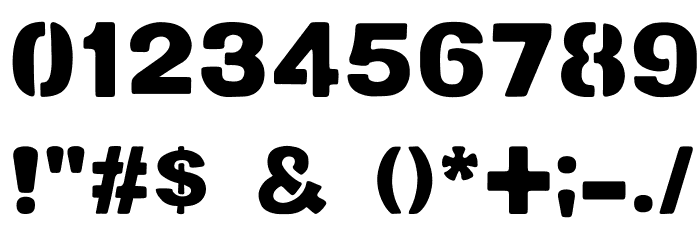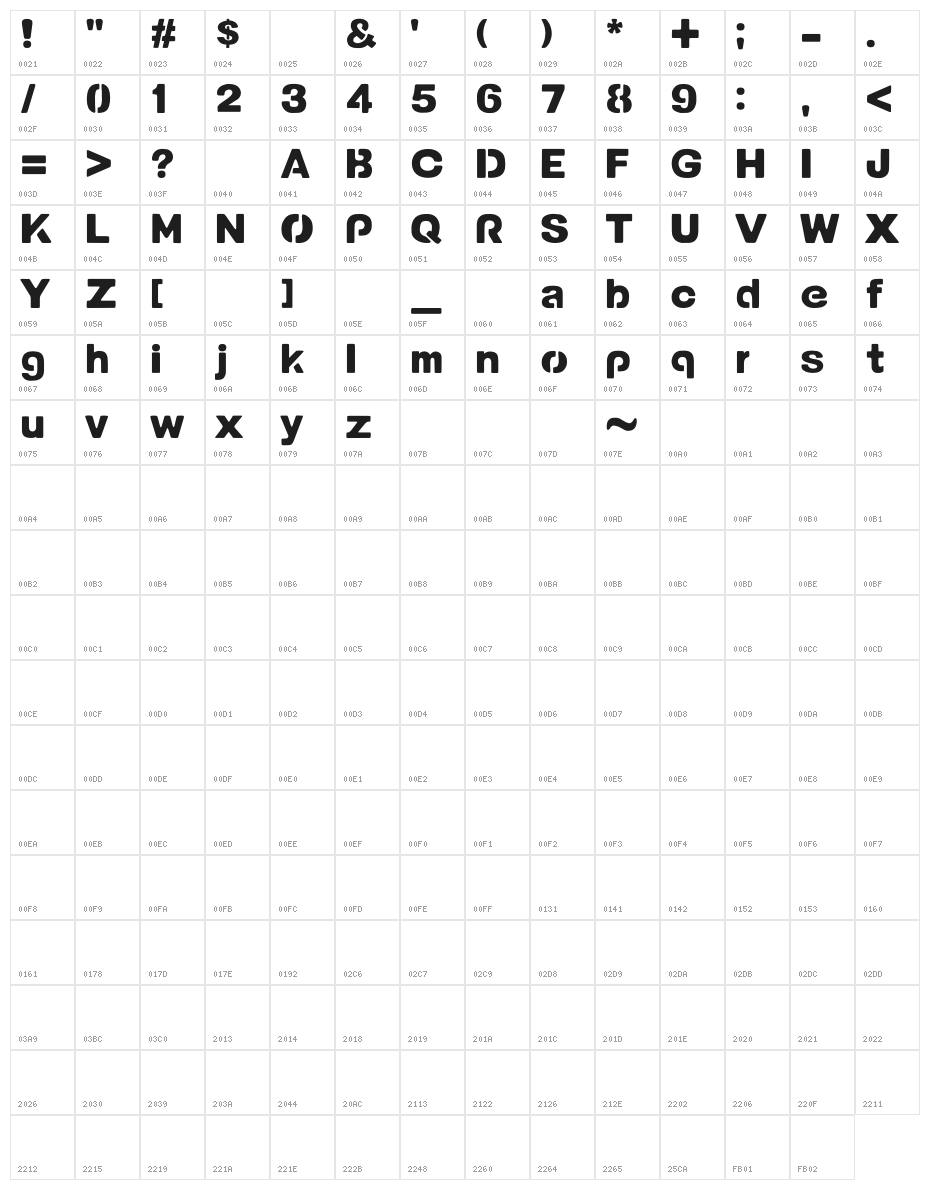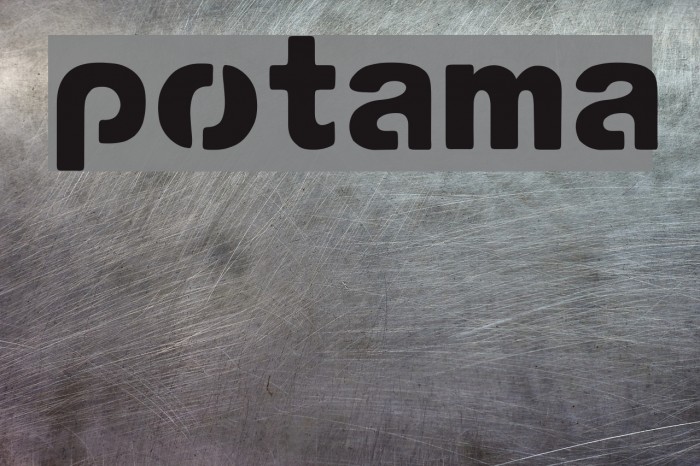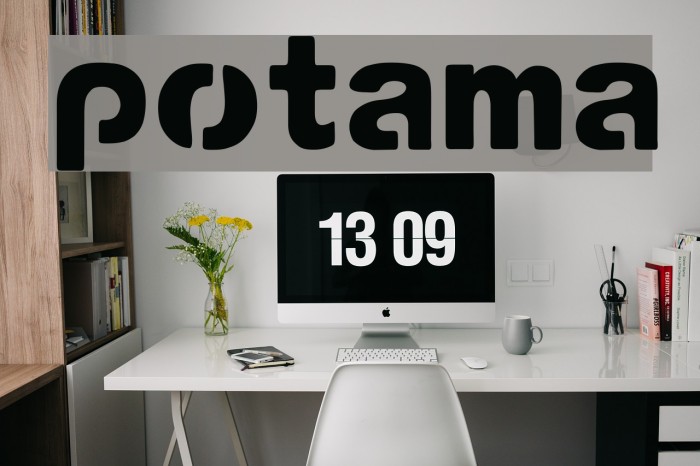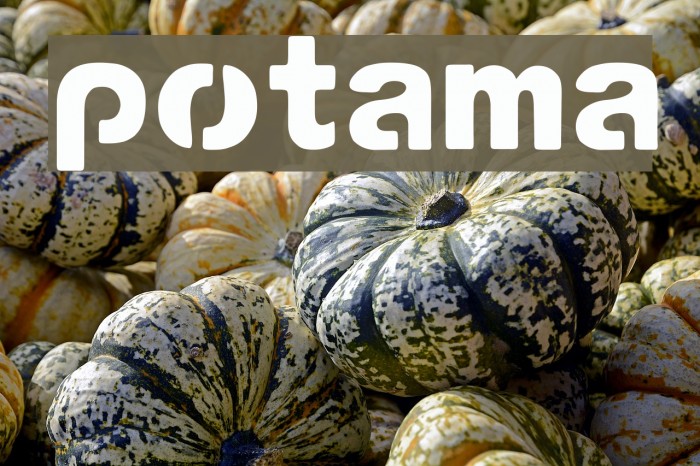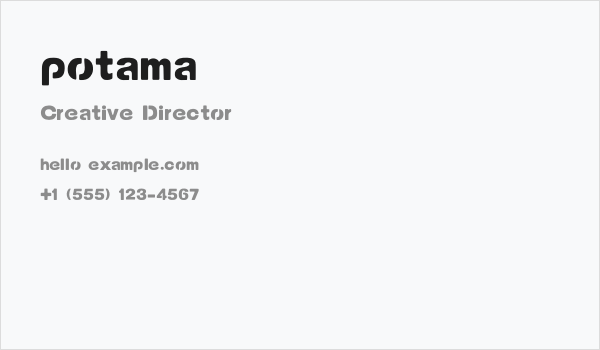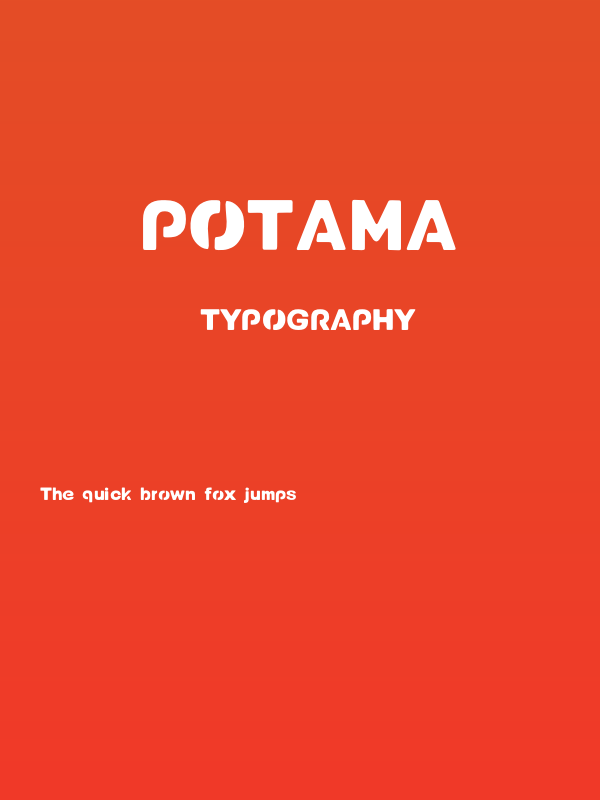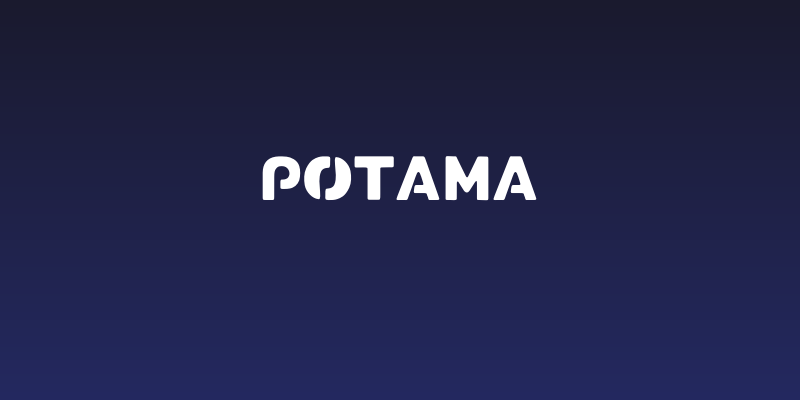
potama Font
potama Description
This font features bold, rounded characters with a strong presence. The uppercase letters are uniformly wide, giving a sense of stability and strength. The lowercase letters maintain the same boldness, with smooth curves and consistent thickness throughout. Numbers are equally bold and rounded, ensuring readability and impact. Special characters are designed to match the overall style, with a playful yet robust appearance. The font's design is modern and versatile, suitable for a variety of applications where a strong, friendly, and approachable look is desired.
Use CaseHeadlines, Logos, Branding
Proposed ProjectsIdeal for branding, advertising, headlines, and packaging design.